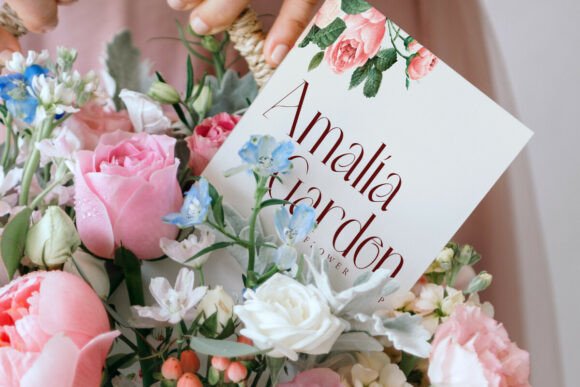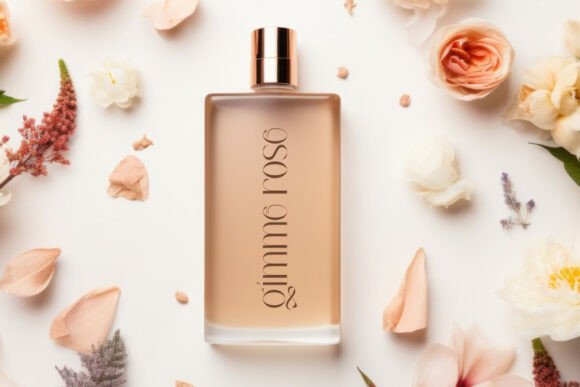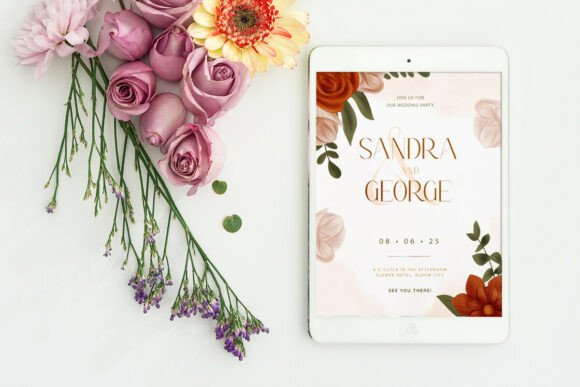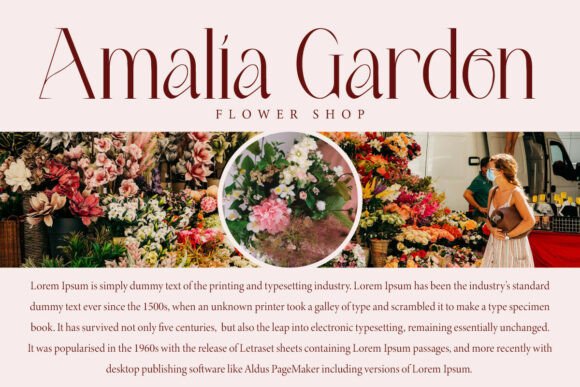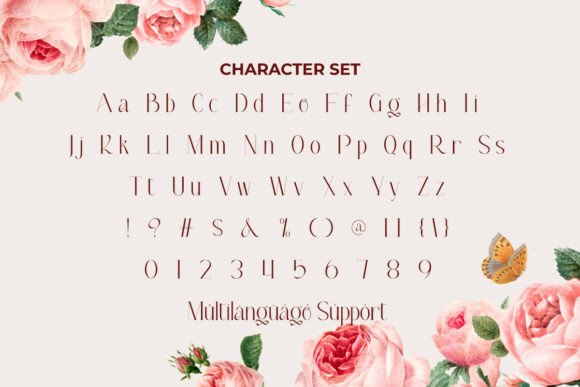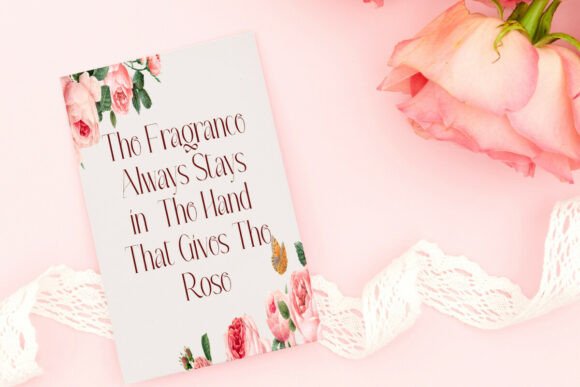
Gimme Rose Font: Elevate Your Designs with Elegance and Sophistication
Are you searching for a typeface that embodies the perfect blend of vintage romance and modern sophistication? Look no further than the Gimme Rose font, an exquisite display serif typeface that is sure to elevate your designs to new heights. Characterized by its extremely high vertical contrast and delicate, refined serifs, this font is the epitome of elegance and refinement.
A Masterclass in Elegance and Refined Design
The Gimme Rose font boasts smooth, sweeping lines and stunning ligatures, such as the prominent swash on the âgâ that adds a personalized, almost handwritten touch. Its tall, slender look and gentle curves make it the perfect choice for projects that require a blend of vintage romance and modern sophistication. Whether you’re designing wedding invitations, chic fashion branding, delicate product packaging, book covers, or feminine logo designs, this font is sure to make a lasting impression.
Unleash Your Creativity with PUA-Encoding
Perfect for a Range of Design Applications
The Gimme Rose font is incredibly versatile, making it suitable for a wide range of design applications. Here are just a few examples of where this font can shine:
- Wedding Invitations: Add a touch of romance and elegance to your wedding invitations with the Gimme Rose font. Its refined serifs and smooth lines make it perfect for formal wedding stationery.
- Chic Fashion Branding: Elevate your fashion brand with the Gimme Rose font, which exudes sophistication and style. Use it for logos, packaging, and marketing materials to create a cohesive and luxurious brand image.
- Delicate Product Packaging: Add a touch of elegance to your product packaging with the Gimme Rose font. Its refined design and smooth lines make it perfect for high-end product packaging.
- Book Covers: Create a lasting impression with the Gimme Rose font, which is perfect for book covers that require a touch of sophistication and elegance.
- Feminine Logo Design: The Gimme Rose font is a great choice for feminine logo designs, where a touch of elegance and refinement is essential.
Why Choose the Gimme Rose Font?
So why choose the Gimme Rose font for your next design project? Here are just a few reasons:
- Unique and Eye-Catching: The Gimme Rose font is a standout typeface that is sure to grab attention and leave a lasting impression.
- Versatile: This font is incredibly versatile, making it suitable for a wide range of design applications.
- Elegant and Refined: The Gimme Rose font exudes elegance and refinement, making it perfect for designs that require a touch of sophistication.
In conclusion, the Gimme Rose font is an exquisite display serif typeface that is sure to elevate your designs to new heights. With its elegant and refined design, smooth lines, and stunning ligatures, this font is perfect for projects that require a blend of vintage romance and modern sophistication. Whether you’re designing wedding invitations, chic fashion branding, delicate product packaging, book covers, or feminine logo designs, the Gimme Rose font is sure to make a lasting impression. So why wait? Choose the Gimme Rose font for your next design project and experience the power of elegance and sophistication.